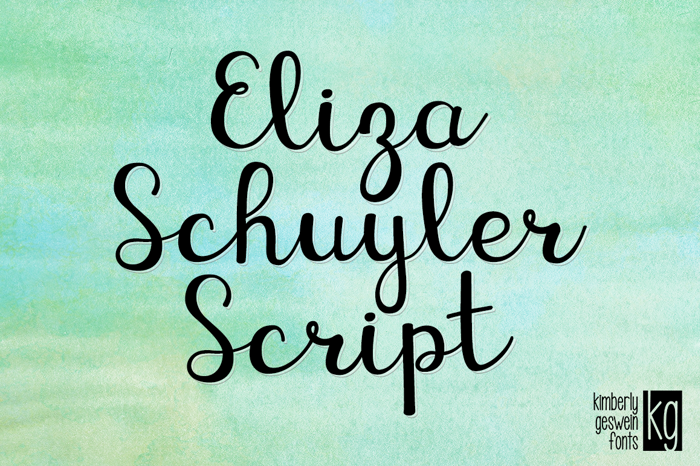
KG Eliza Schuyler Script Font
For words beginning with the lowercase "r" please use a vertical bar key as the r to have an intro stroke.
almost 11 years agoVery beautiful font! Eliza is very talented! <3
almost 10 years agoI luv this! SO bootay-ful and elegant!
almost 10 years agoI luv this 2!!!!!!!!!!